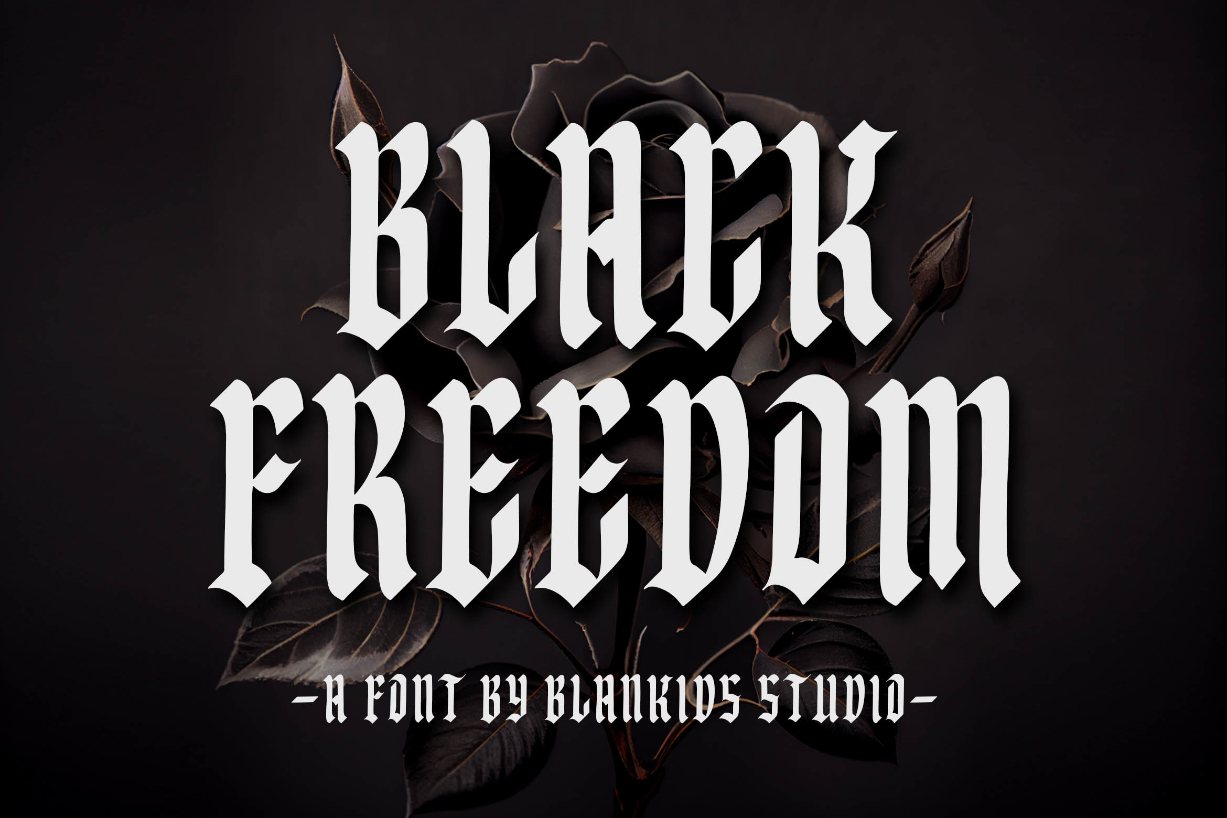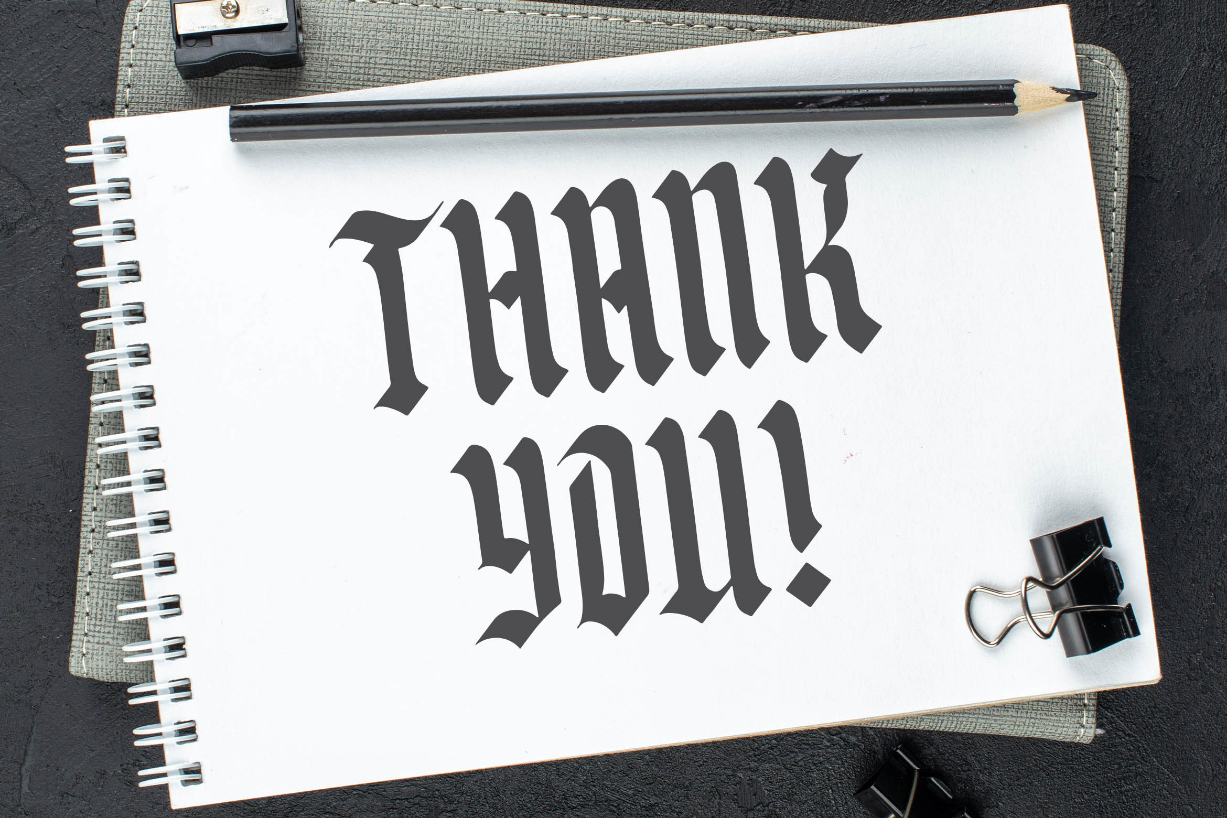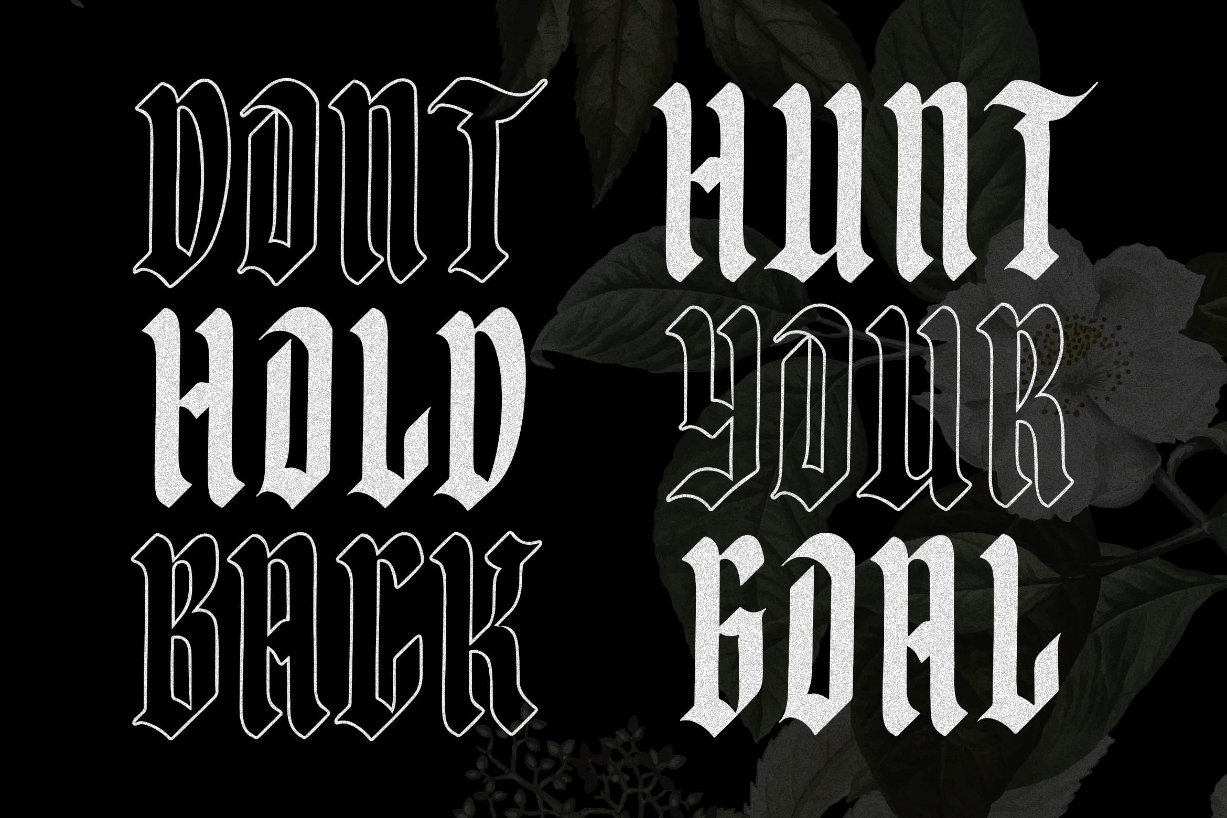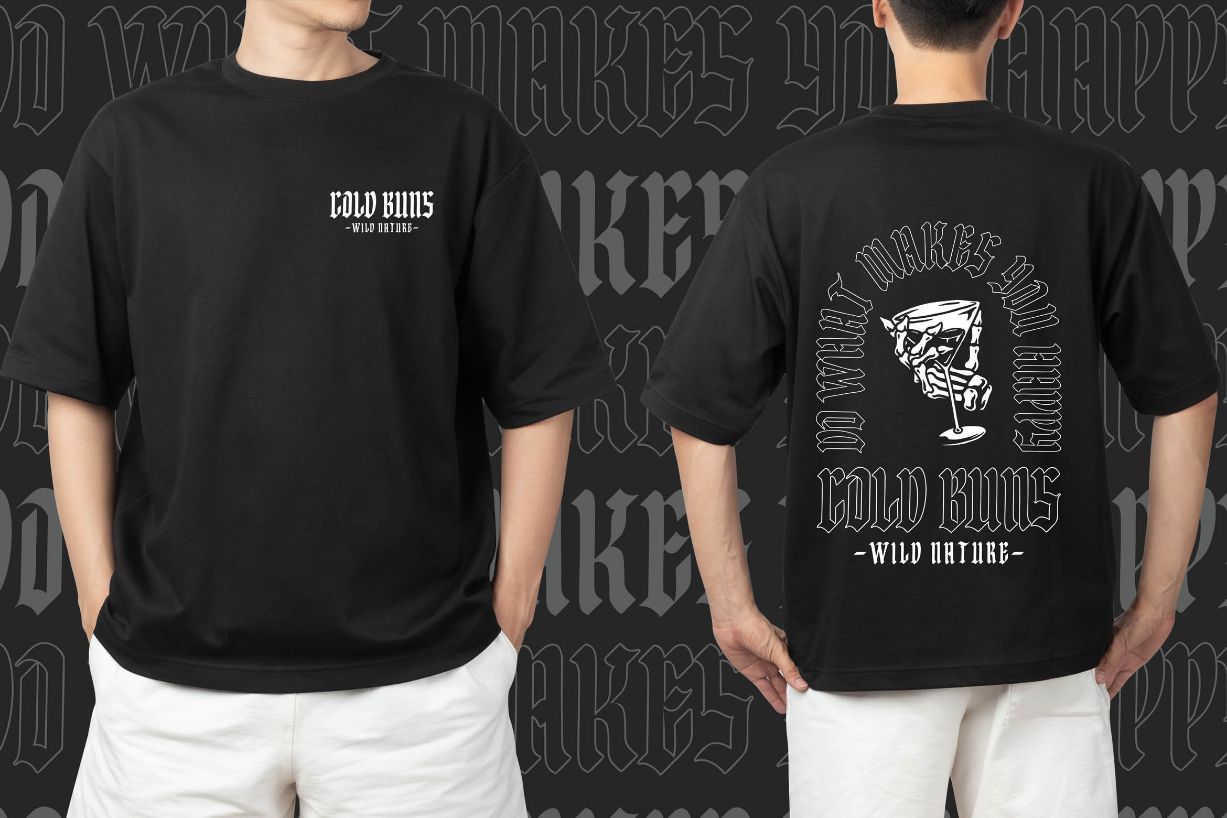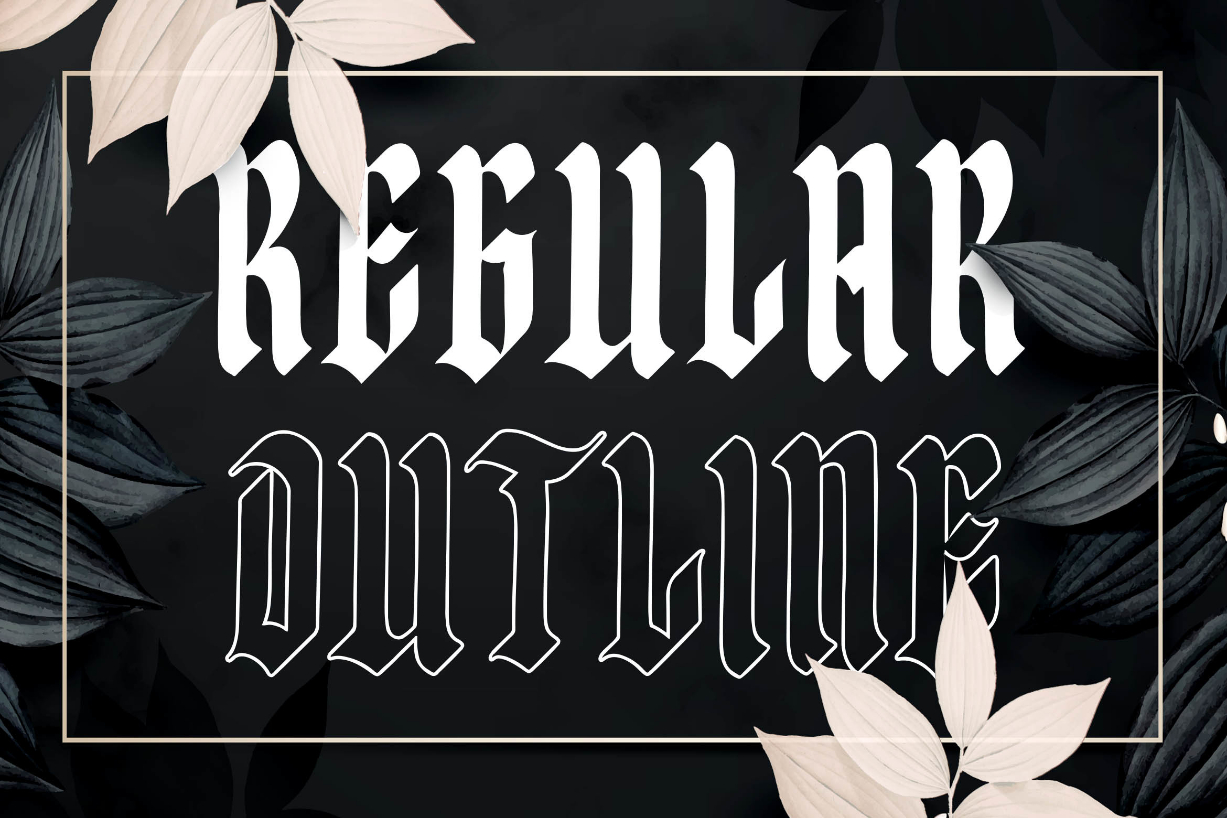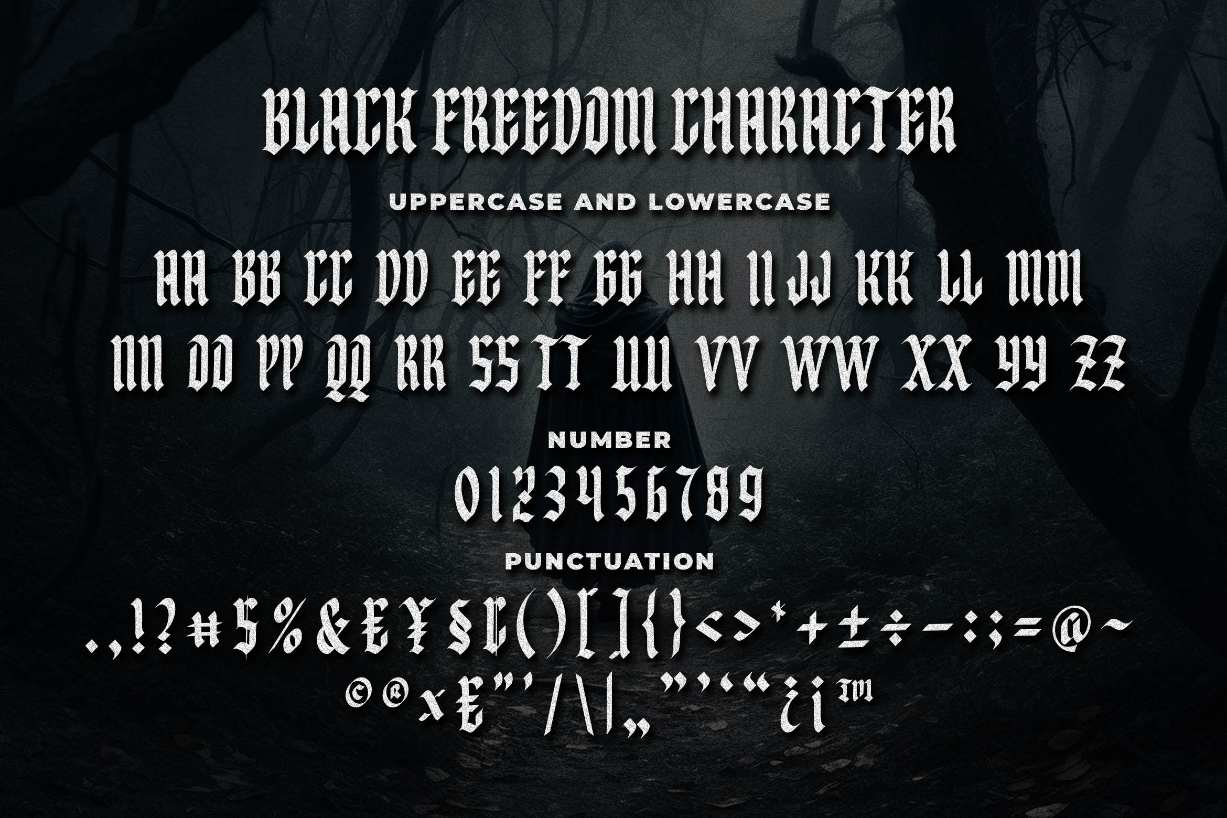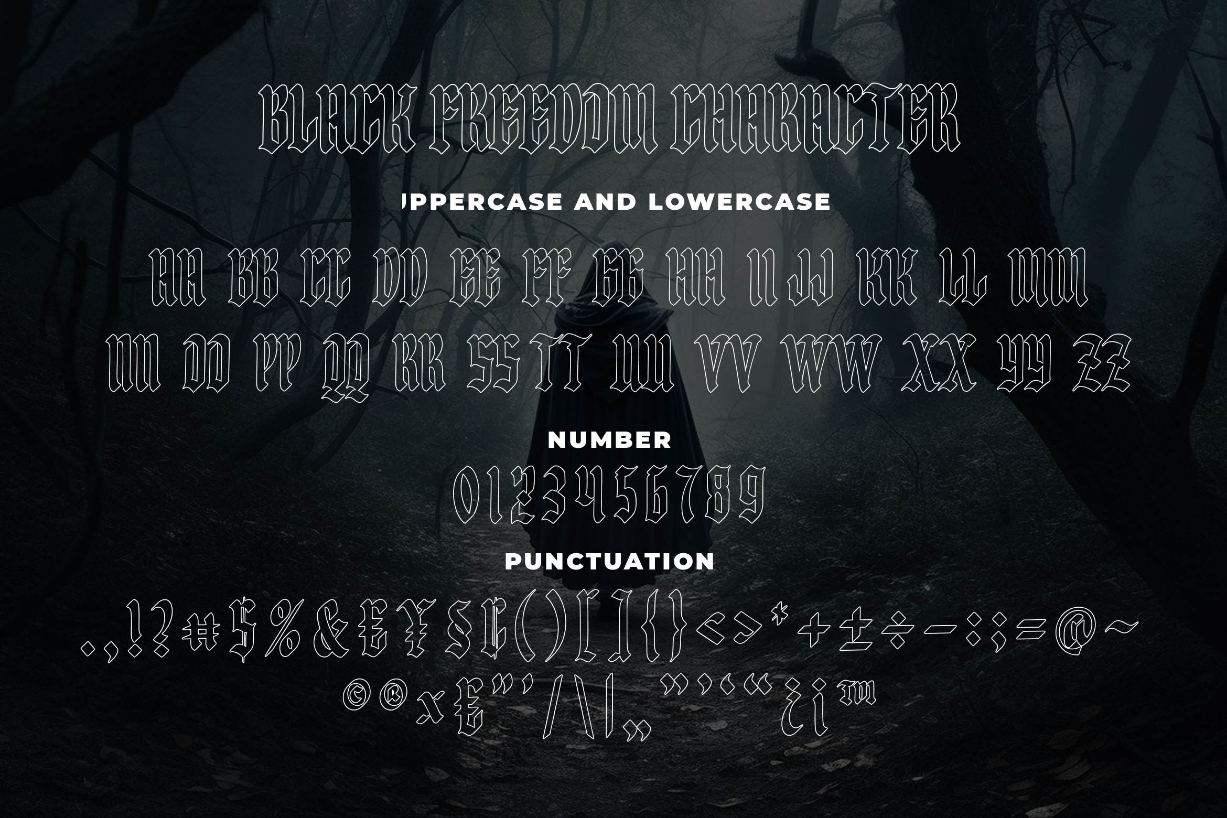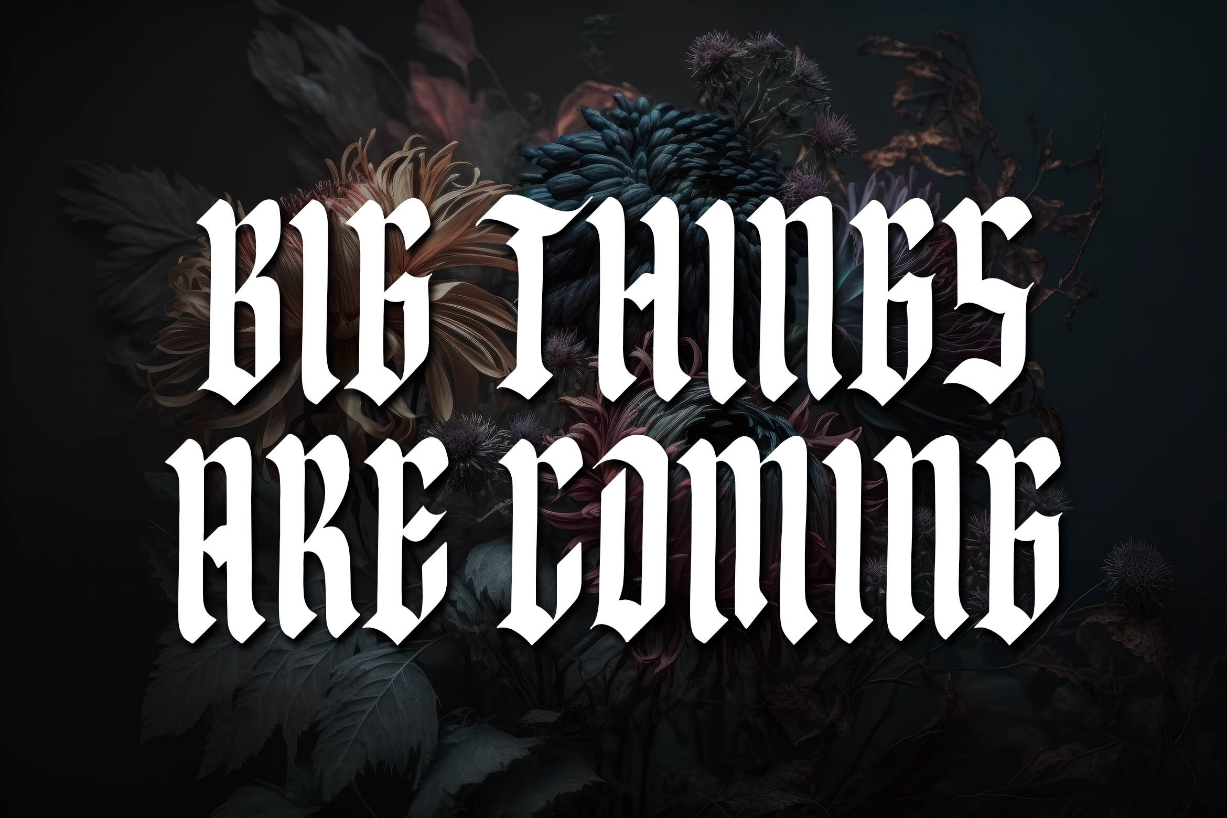
Black Freedom Font
About Black Freedom Font
Black Freedom is a bold and striking blackletter font that exudes coolness and sophistication. Its sharp angles and intricate details capture the essence of Gothic letterforms, making a powerful statement. Perfect for projects that require a touch of edge and rebellion, Black Freedom adds a distinctive and timeless charm to logos, posters, and branding materials. Embrace the allure of Black Freedom in your designs.